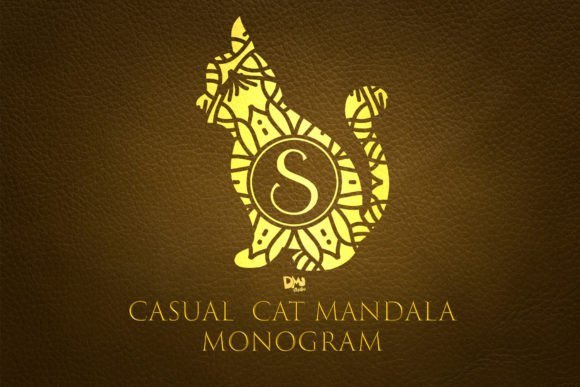
The Purrfect Font for Cat Lovers: A Game-Changer for Designers
Have you ever found yourself scrolling through cat memes and thinking, “This font would be purrfect for my next design project”? If so, you’re not alone. For many designers, finding the right font can be a tedious task, especially when it comes to creating content that’s both visually appealing and meaningful. That’s where the Casual Cat Mandala Monogram Font comes in – a delightful decorative typeface that’s sure to bring a smile to the faces of cat enthusiasts everywhere.
As a designer, you know how valuable a unique and versatile font can be. The Casual Cat Mandala Monogram Font is no exception. With its intricate mandala design and playful cat theme, this font is the perfect addition to any creative project dedicated to kittens. Whether you’re designing a cat calendar, a cat-themed t-shirt, or a cat lover’s gift, this font is sure to add a touch of whimsy and personality to your work.
Casual Cat Mandala Monogram Font Key Features
- Font Style: Casual, Hand-Drawn, Monogram
- Unique Characteristics: Whimsical, hand-drawn design with intricate mandala patterns and cute cat elements, perfect for creative and playful projects
Casual Cat Mandala Monogram Font Review
I recently had the chance to play around with the Casual Cat Mandala Monogram Font, and I have to say, it’s a pretty interesting addition to any design project. ✨ The font’s unique blend of cat and mandala elements adds a quirky touch that can be a great conversation starter.
Here are some of the things that work well with this font:
- ✨ Unique and creative design that can add a fun twist to your projects
- ✨ Great for creating a whimsical or bohemian vibe
- ✨ Can be used for a wide range of applications, from branding to social media graphics
- ⚠️ May not be suitable for projects that require a more serious or professional tone
- ⚠️ Can be a bit difficult to read at smaller font sizes
Overall, I think the Casual Cat Mandala Monogram Font is a fun and creative option for designers who want to add a little personality to their projects. While it may not be the best choice for every project, it’s definitely worth considering if you’re looking for something unique and eye-catching.
The Casual Cat Mandala Monogram Font is perfect for:
- Creative designs, such as invitations and greeting cards.
- Whimsical branding and marketing materials.
- Handmade or vintage-inspired projects.
For best results, pair the font with complementary colors and textures to create a unique and eye-catching design.
Alternatives to Casual Cat Mandala Monogram Font
Great Vibes is a beautiful, handwritten font that works well for titles, headings, and quotes. It’s ideal for designs that need a touch of elegance and sophistication. Compared to Casual Cat Mandala Monogram Font, Great Vibes is more refined and less playful.
Pacifico is a elegant, cursive font that’s perfect for designs that need a sense of luxury and sophistication. It’s ideal for titles, headings, and body text. Compared to Casual Cat Mandala Monogram Font, Pacifico is more formal and less quirky.
Dancing Script is a flowing, handwritten font that’s perfect for designs that need a sense of movement and energy. It’s ideal for titles, headings, and quotes. Compared to Casual Cat Mandala Monogram Font, Dancing Script is more dynamic and less whimsical.
Alex Brush is a elegant, handwritten font that’s perfect for designs that need a touch of sophistication and refinement. It’s ideal for titles, headings, and body text. Compared to Casual Cat Mandala Monogram Font, Alex Brush is more subtle and less playful.